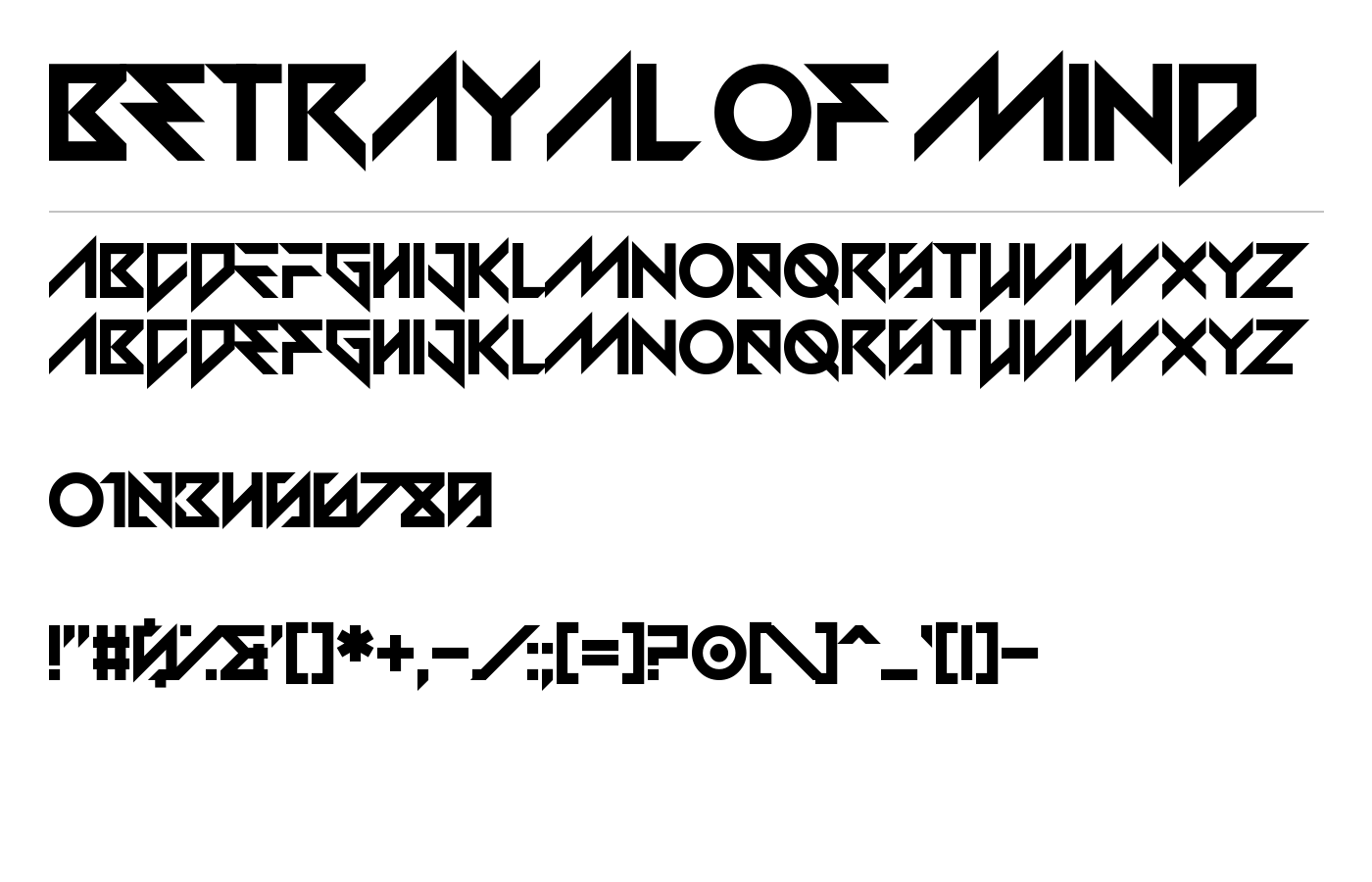
Betrayal of Mind is a bold, geometric sans serif font with a strong, futuristic vibe characterized by sharp angles and solid black strokes. Its unique letterforms combine angular cuts and circular elements, giving it a highly stylized, tech-inspired look ideal for striking headlines, logos, and branding in creative or digital industries. This font's distinctive design makes it perfect for projects seeking a modern, edgy, and impactful visual identity.
Betrayal of Mind Font
About Betrayal of Mind Font